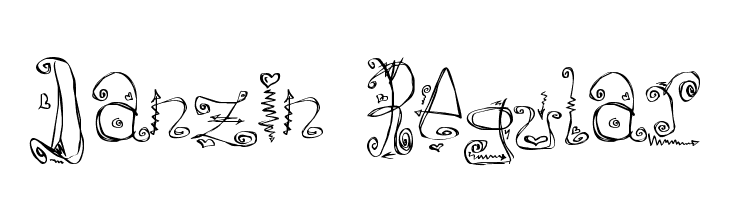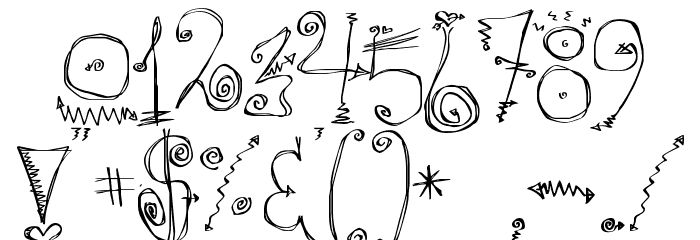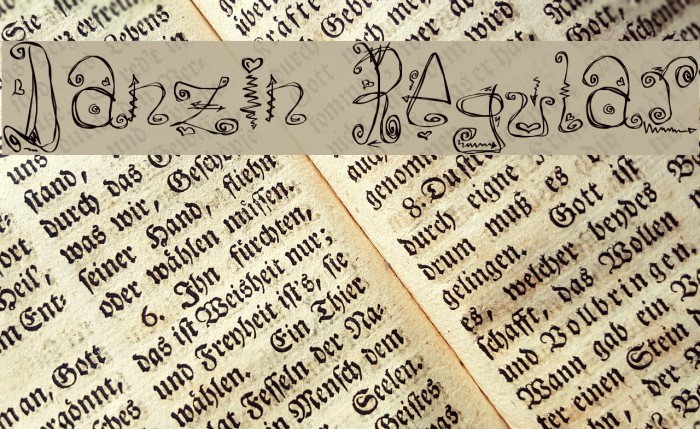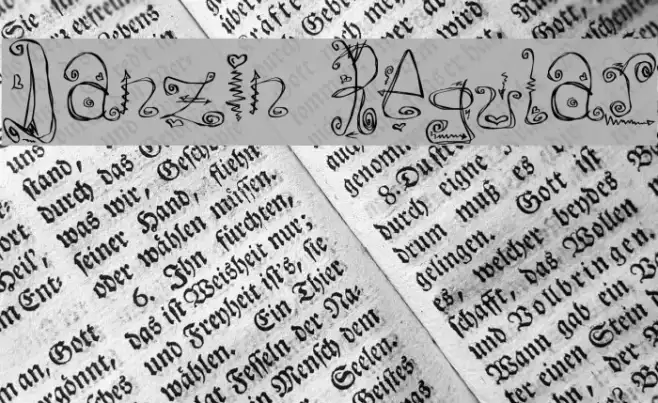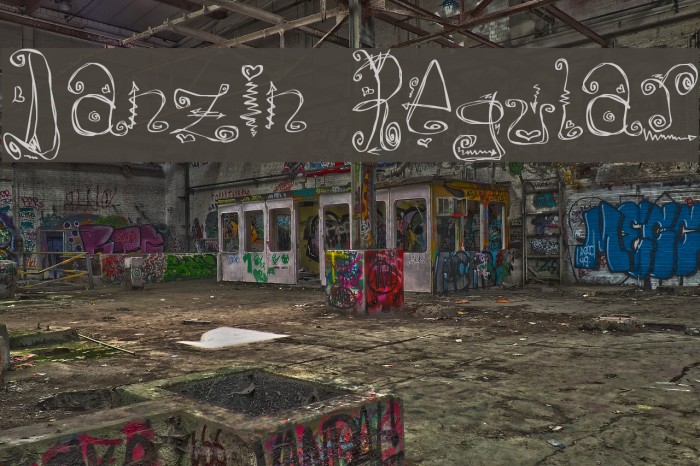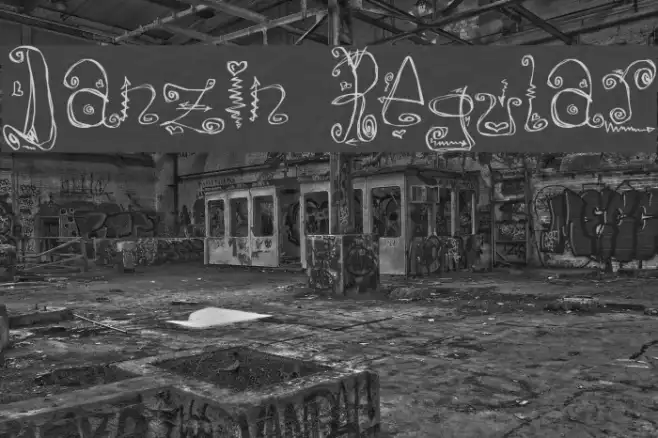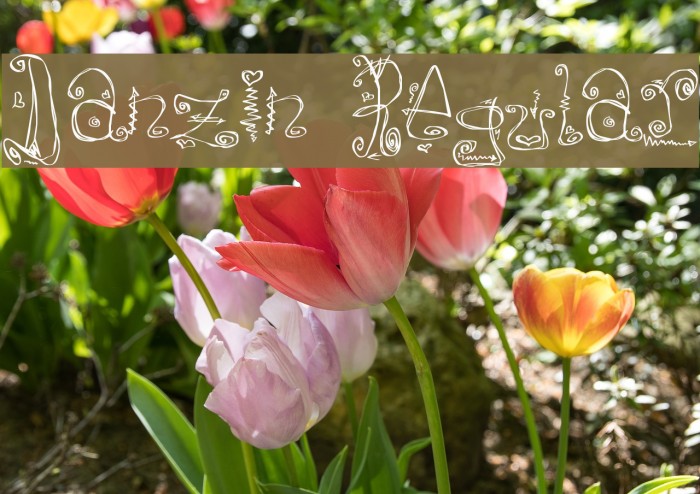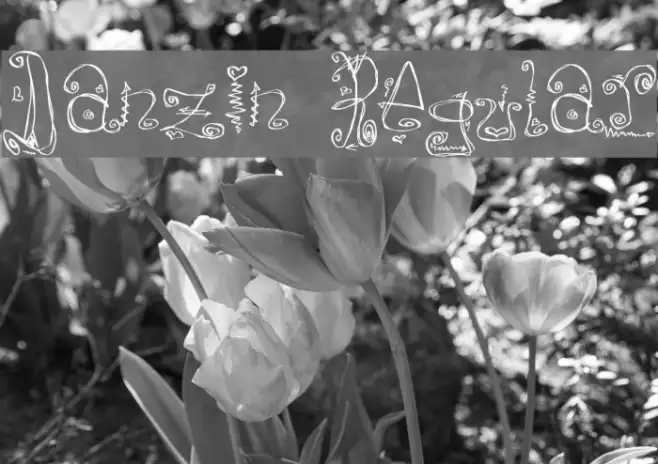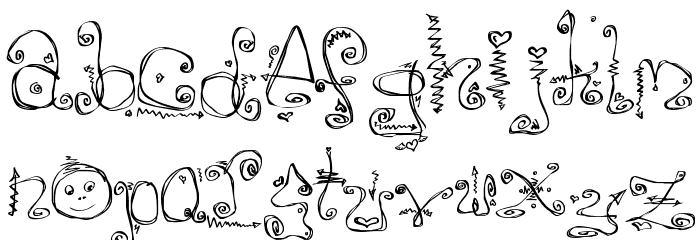
Danzin Regular Font
Danzin Regular Description
This whimsical and playful font is characterized by its intricate and decorative design, featuring swirls, curls, and various embellishments that give it a lively and artistic appearance. Each character is uniquely crafted with a sense of movement and creativity, making it stand out as a statement piece. The font includes a full set of uppercase and lowercase letters, numbers, and a variety of special characters, all maintaining the same artistic flair. Its hand-drawn style adds a personal touch, making it suitable for projects that require a fun and engaging visual element.
| Proposed Projects | Ideal for children's book covers, playful invitations, creative posters, and artistic branding projects. |